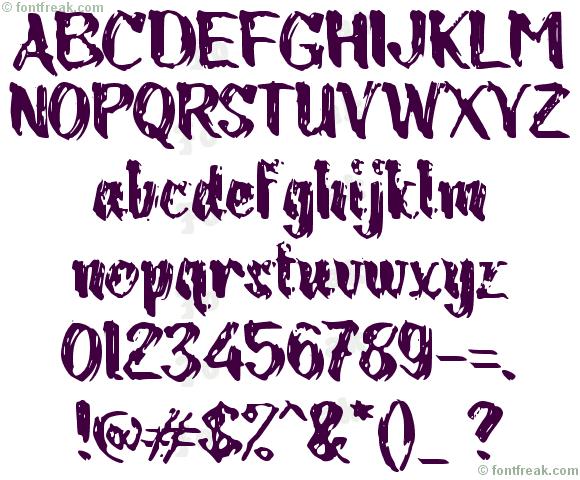
Cengkeh
Cengkeh, designed by Wahyu Eka Prasetya, is a captivating display font that exudes a unique charm, making it an excellent choice for various design projects. As a decorative font, Cengkeh features an intriguing combination of bold, expressive strokes and artistic flair. The weight of the strokes is variable, offering a dynamic contrast that adds visual interest. The spacing between letters is thoughtfully arranged, ensuring readability while maintaining a playful aesthetic. This font incorporates decorative elements reminiscent of traditional calligraphy, which enhances its organic appeal.
Cengkeh is particularly well-suited for specific use cases, such as wedding invitations where its elegance can evoke romance and joy. It also shines in creating eye-catching movie posters, providing a dramatic touch that captures attention and sets the tone. Restaurant menus can benefit from Cengkeh's distinctive style, adding a creative flair that entices diners. Additionally, this font can elevate branding materials for small businesses, allowing them to stand out in a competitive market. Content creators will find Cengkeh useful for social media graphics, making their posts visually striking and memorable.
Targeting graphic designers, small business owners, and content creators, Cengkeh offers a versatile tool for anyone looking to enhance their visual communication. Its unique design elements cater to a wide range of audiences, from those seeking a modern aesthetic to those who appreciate traditional craftsmanship.
What makes the Cengkeh font stand out is its ability to blend artistic expression with practicality. This font not only captures the eye but also communicates a sense of personality and style. With the Cengkeh font free download available, designers can easily incorporate this exceptional typeface into their projects, allowing their creativity to flourish.